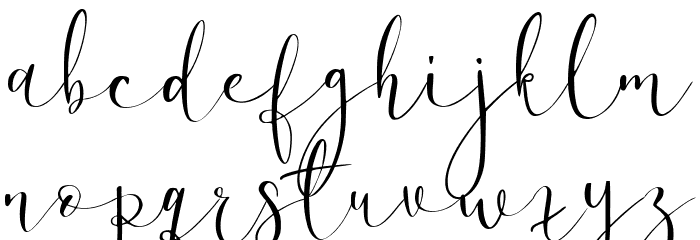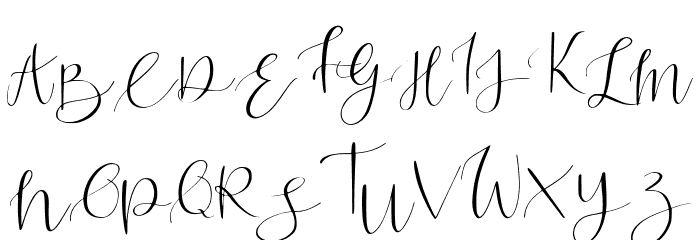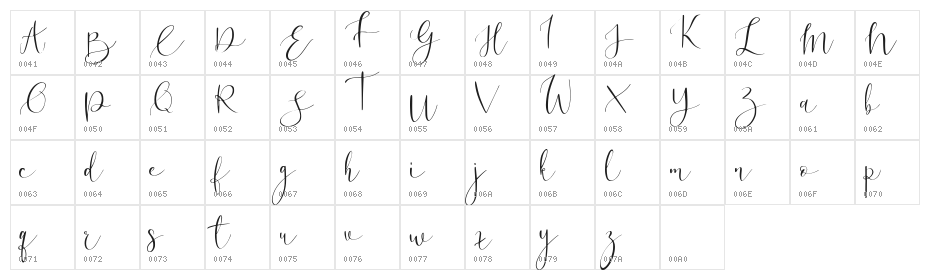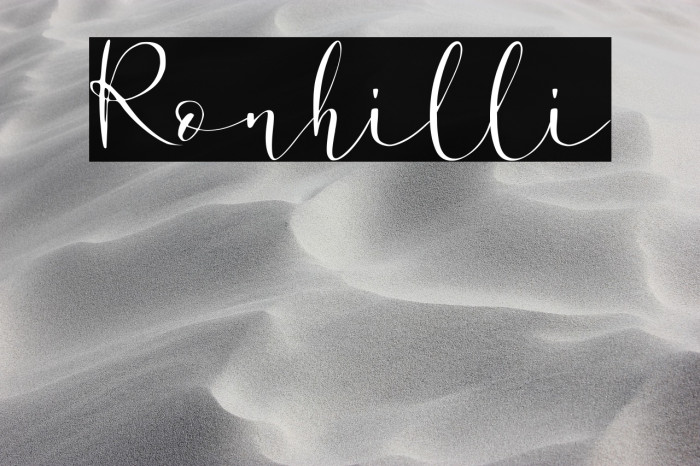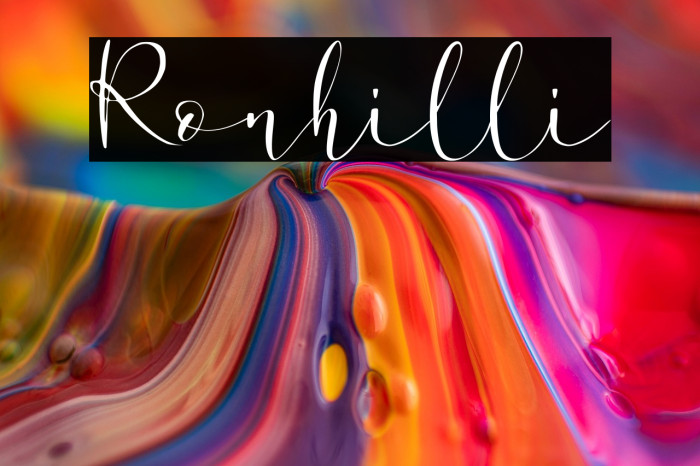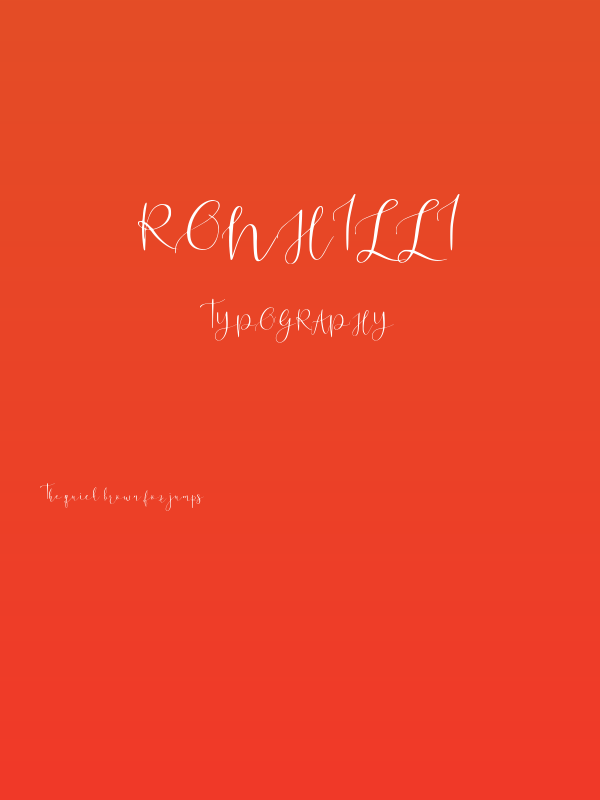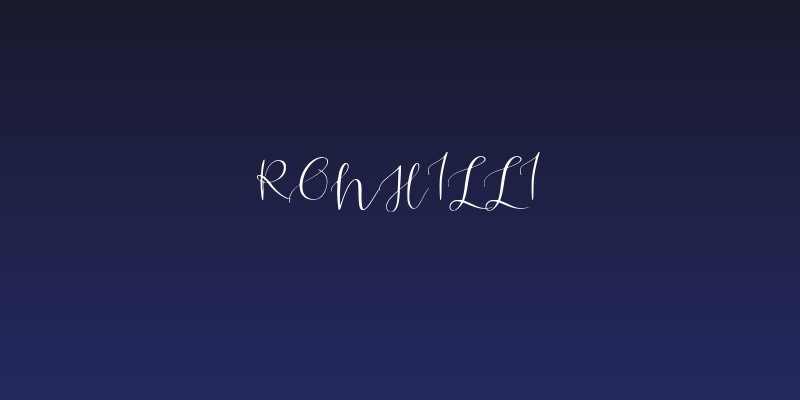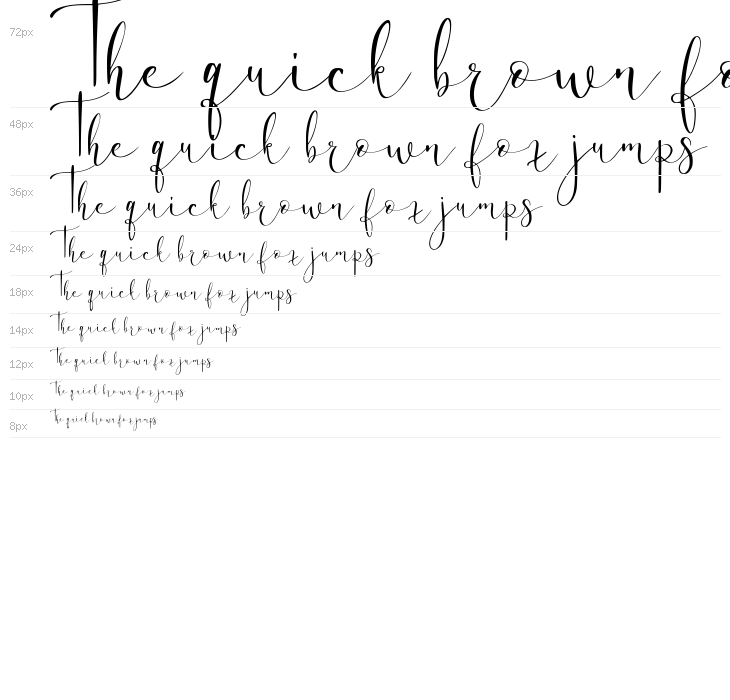
Ronhilli Font
This font exudes elegance and sophistication with its flowing, cursive style. The letters are intricately designed with graceful loops and swashes, giving it a handwritten feel. The uppercase characters are particularly ornate, featuring extended flourishes that add a touch of drama. The lowercase letters maintain a consistent style, with smooth curves and a slightly playful appearance. The overall design is balanced, with a medium stroke contrast that enhances readability while maintaining its decorative appeal. This font is perfect for projects that require a personal and artistic touch.
An elegant, cursive font with flowing, decorative swashes.
- Proposed Projects: Ideal for wedding invitations, greeting cards, branding, and elegant packaging.
- Use Case: Logos, Invitations, Decorative text